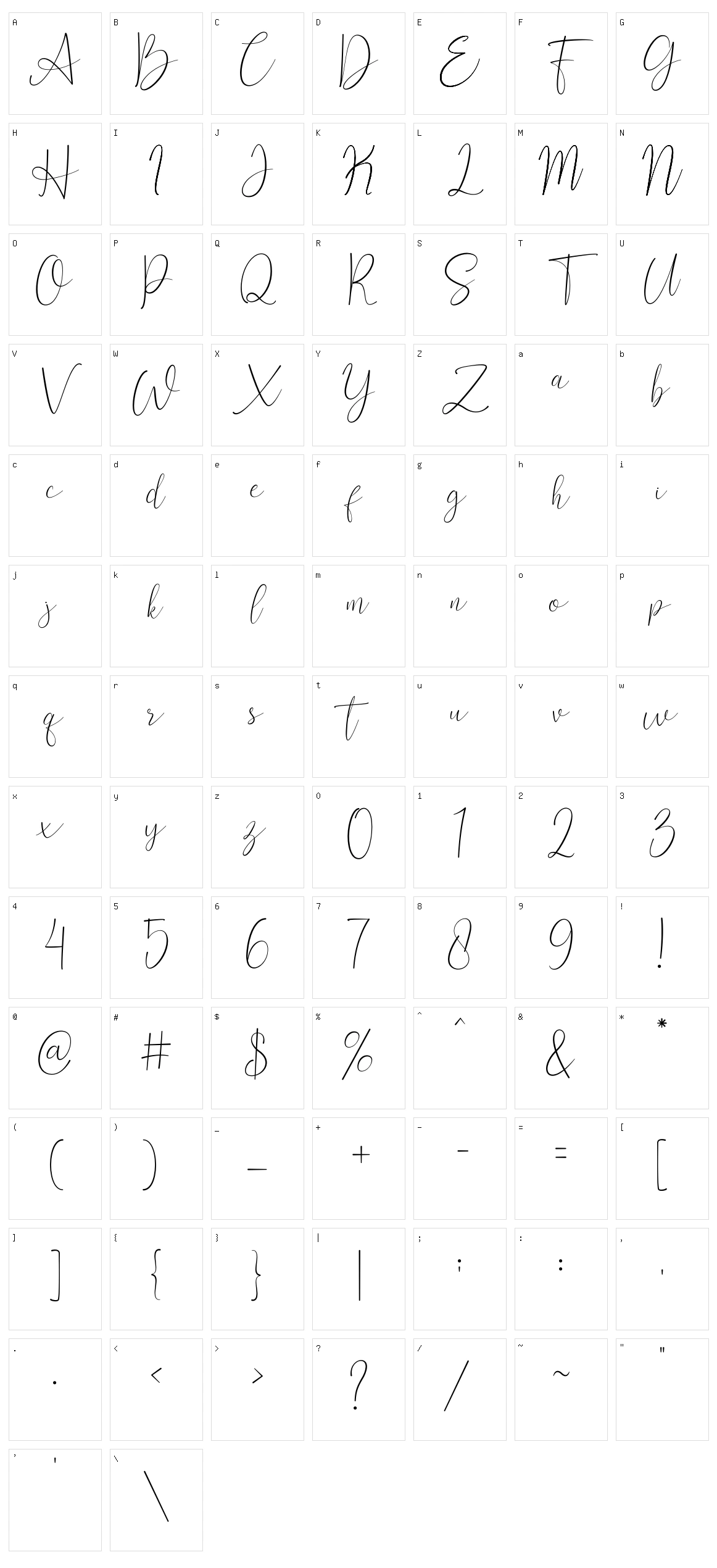
The free font Beliantic is carefully designed by Hoperative, showcasing a thoughtful balance of creativity and usability and falls under the Script font style. When you download the ZIP file, it contains only 202.08 KB of font files, making it lightweight and quick to download. Please review the license details below to understand permitted usage and distribution rights. If license information is not available, we recommend using this font for personal projects only or contacting the author directly for commercial usage permissions.